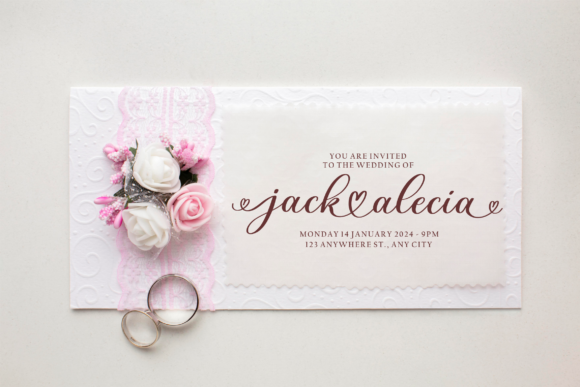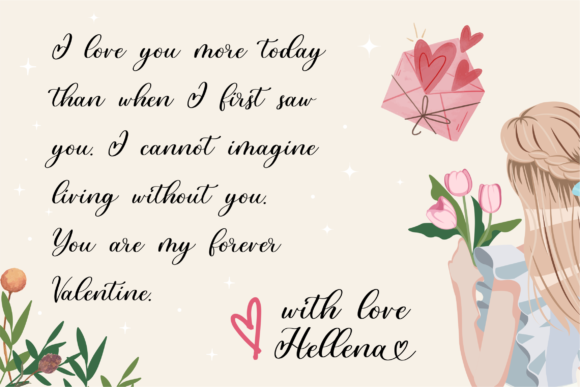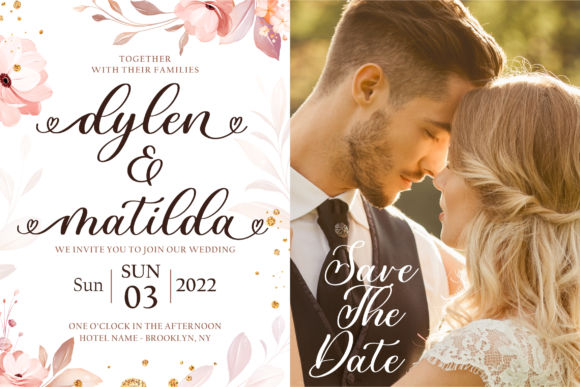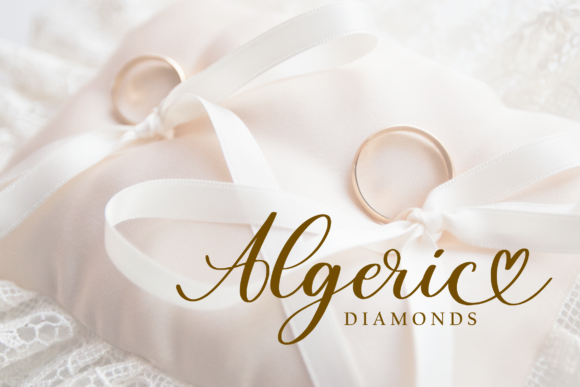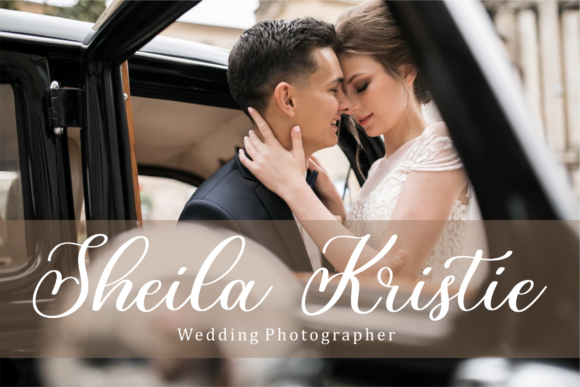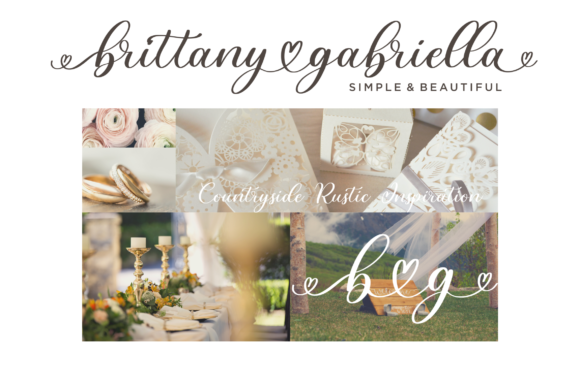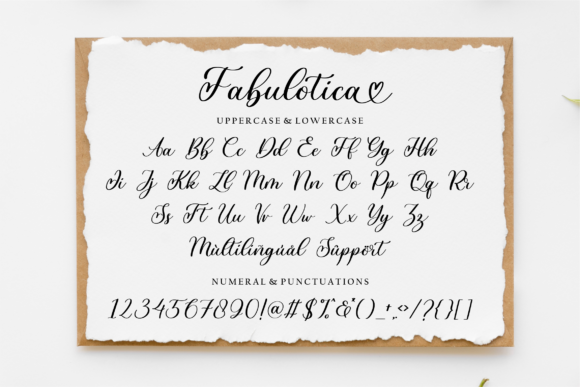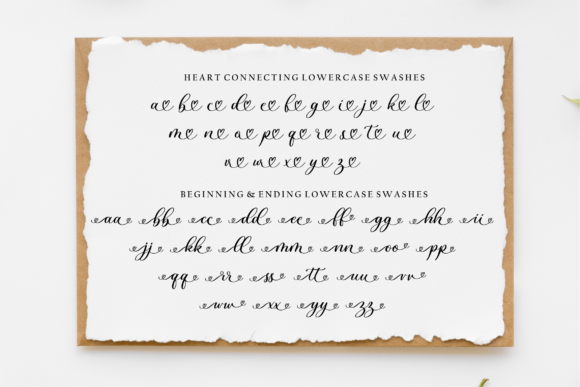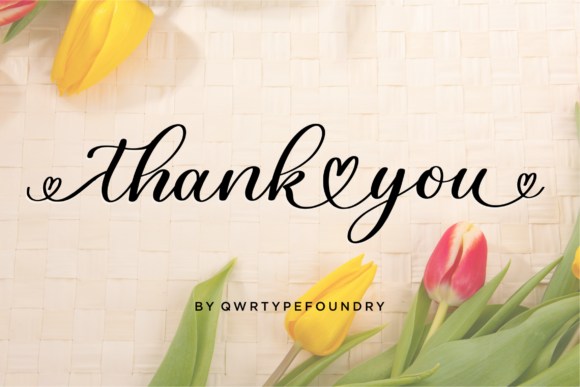
Fabulotica is an exquisite and elegant script font that exudes beauty and style in every stroke. This font is an ideal choice for a wide range of creative applications, including product packaging, branding projects, magazine covers, social media posts, weddings, and any scenario where you want to convey a message with grace and sophistication.
With its graceful and flowing design, Fabulotica adds a touch of luxury and charm to any visual project. The font’s versatility makes it suitable for various design purposes, allowing you to express words seamlessly against different backgrounds and themes.
Imagine your product packaging adorned with the captivating curves of Fabulotica, instantly elevating the perceived value and aesthetics of your brand. The font’s inherent charm makes it a perfect choice for creating a lasting impression on consumers.
Branding projects come to life with the distinctive and stylish elements of Fabulotica, helping your brand stand out in a crowded market. Whether it’s a logo, tagline, or promotional material, this font effortlessly adds a touch of sophistication, making your brand visually appealing and memorable.
Magazine covers become visually striking and attention-grabbing when Fabulotica is employed. Its unique script style draws readers in, setting the tone for an engaging and aesthetically pleasing reading experience.
In the realm of social media, where visuals play a crucial role, Fabulotica shines as a font that enhances the overall look and feel of your posts. Whether you’re sharing quotes, announcements, or creative content, this font brings an extra layer of elegance to your online presence.
Fabulotica’s romantic and graceful appearance makes it a natural choice for wedding-related materials. From invitations to place cards, the font adds a touch of sophistication to the joyous occasion, creating a harmonious and visually pleasing atmosphere.
In conclusion, Fabulotica stands as a versatile and captivating script font, capable of transforming ordinary text into a visual masterpiece. Its beauty and style make it a valuable asset for designers and creatives looking to elevate their projects, ensuring a lasting impact on their audience.